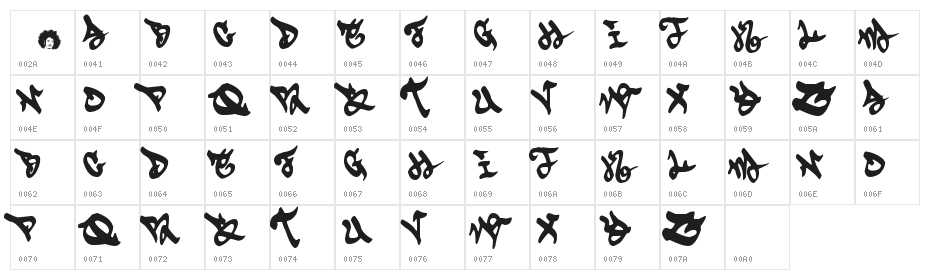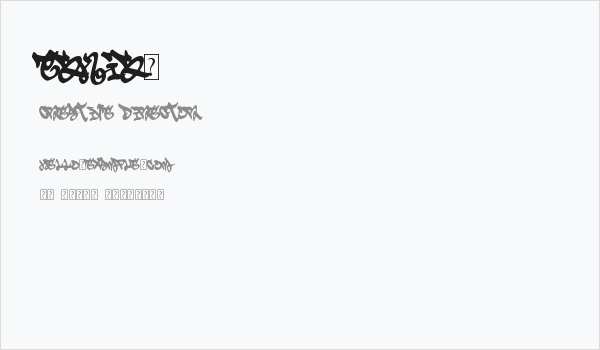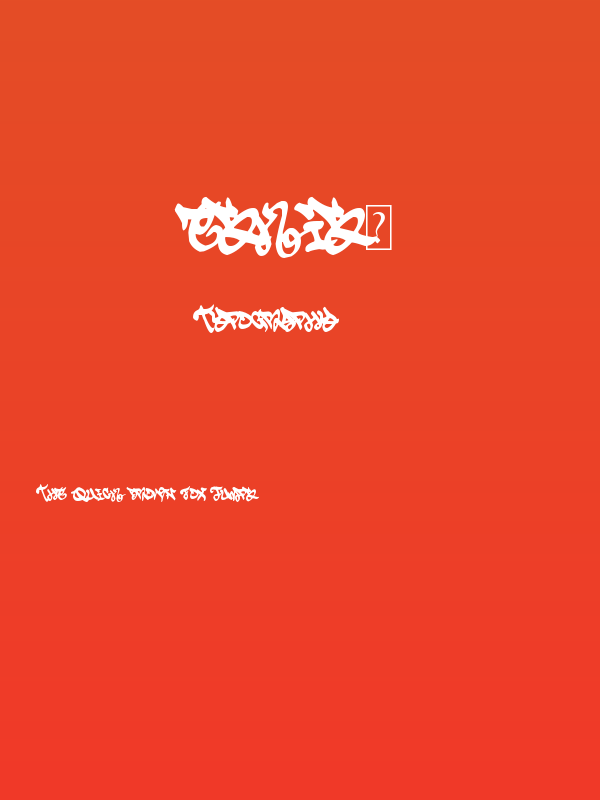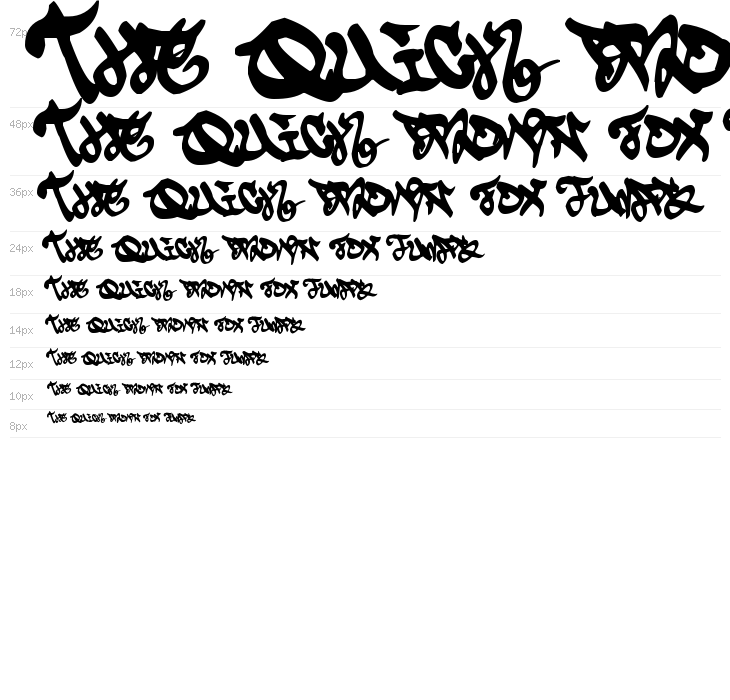
Eskis1 Font
Eskis1 Description
This font exhibits a bold and expressive style, characterized by its graffiti-inspired, hand-drawn appearance. The letters are highly stylized with exaggerated curves and sharp angles, creating a dynamic and energetic look. The uppercase and lowercase letters maintain a consistent flow, with each character seamlessly connecting to the next. The numbers and special characters follow the same artistic theme, ensuring a cohesive design throughout. This font is ideal for projects that require a bold statement or a street art aesthetic.
| Overall Style | Modern, Urban |
| Proposed Projects | Ideal for street art designs, urban-themed posters, music album covers, and edgy branding projects. |